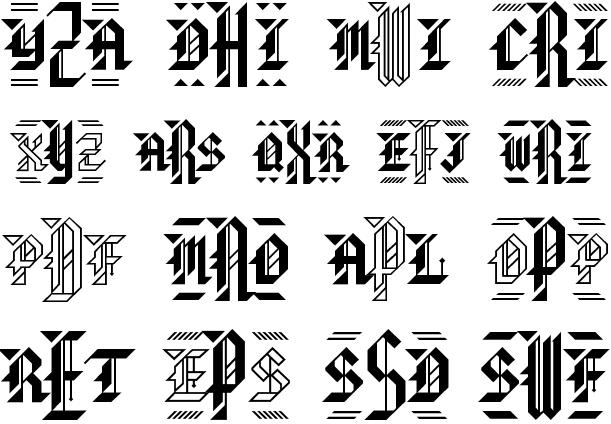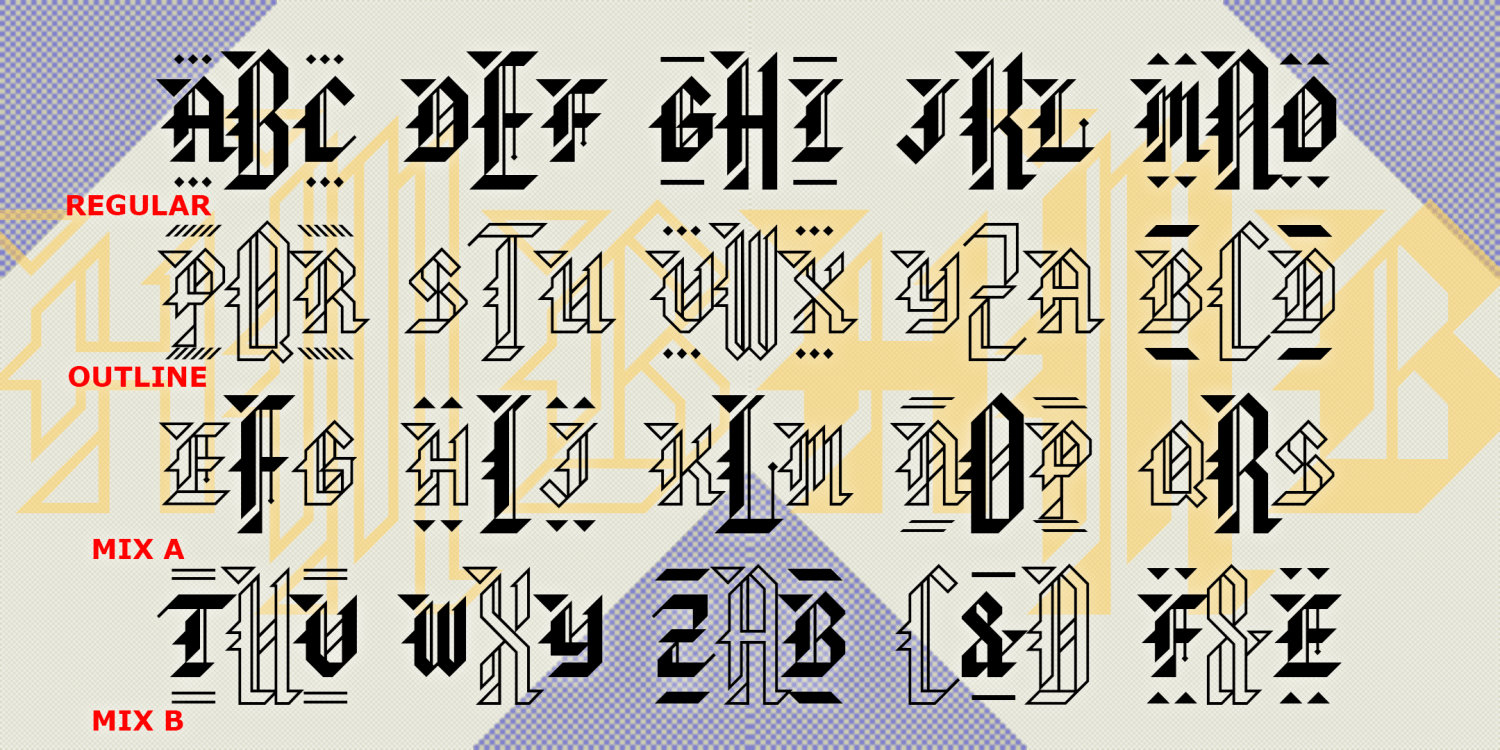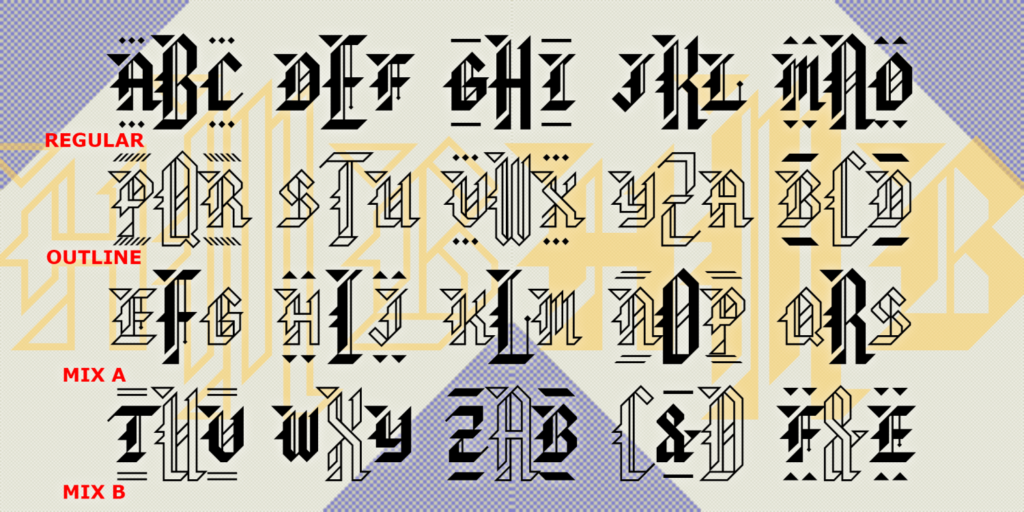
Baronial Monograms
About Baronial Monograms
The Baronial Monograms fonts are designed to create unique blackletter style monograms. Optional decorative elements tie in the smaller, outside letters. The letterforms were inspired by the analog font "American Text" as reproduced in a Dan…